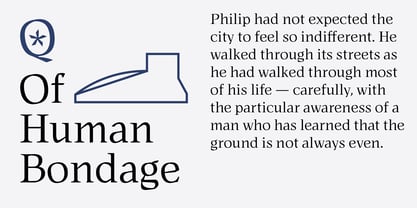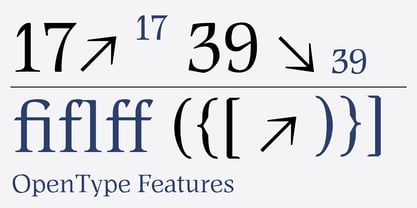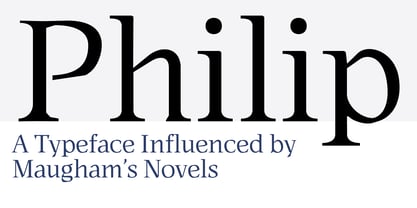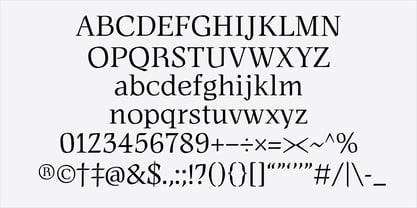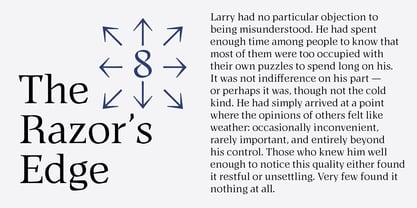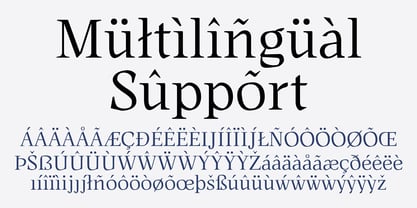
Philip
by People Make Types
The Philip Font Family was designed by Jino Yang and published by People Make Types. Philip contains 1 styles. More about this family
Philip is a humanist serif typeface that finds its beauty in subtle deviation — familiar in form, yet deliberately askew. Inspired by Philip Carey, the protagonist of W. Somerset Maugham's "Of Human Bondage" — a man ordinary at heart, yet sharpened by his club foot — the typeface translates that tension into letterforms. Where humanist serifs typically curve, Philip turns straight, giving the design an edge that feels precise rather than cold. The tail of the Q takes on a clubbed, rounded form: a direct nod to the character himself. Philip shines at display sizes, where its details command attention. In shorter text settings, the sharpness remains — subtle, but present. Ideal for editorial design, book covers, fashion branding, and headline use.